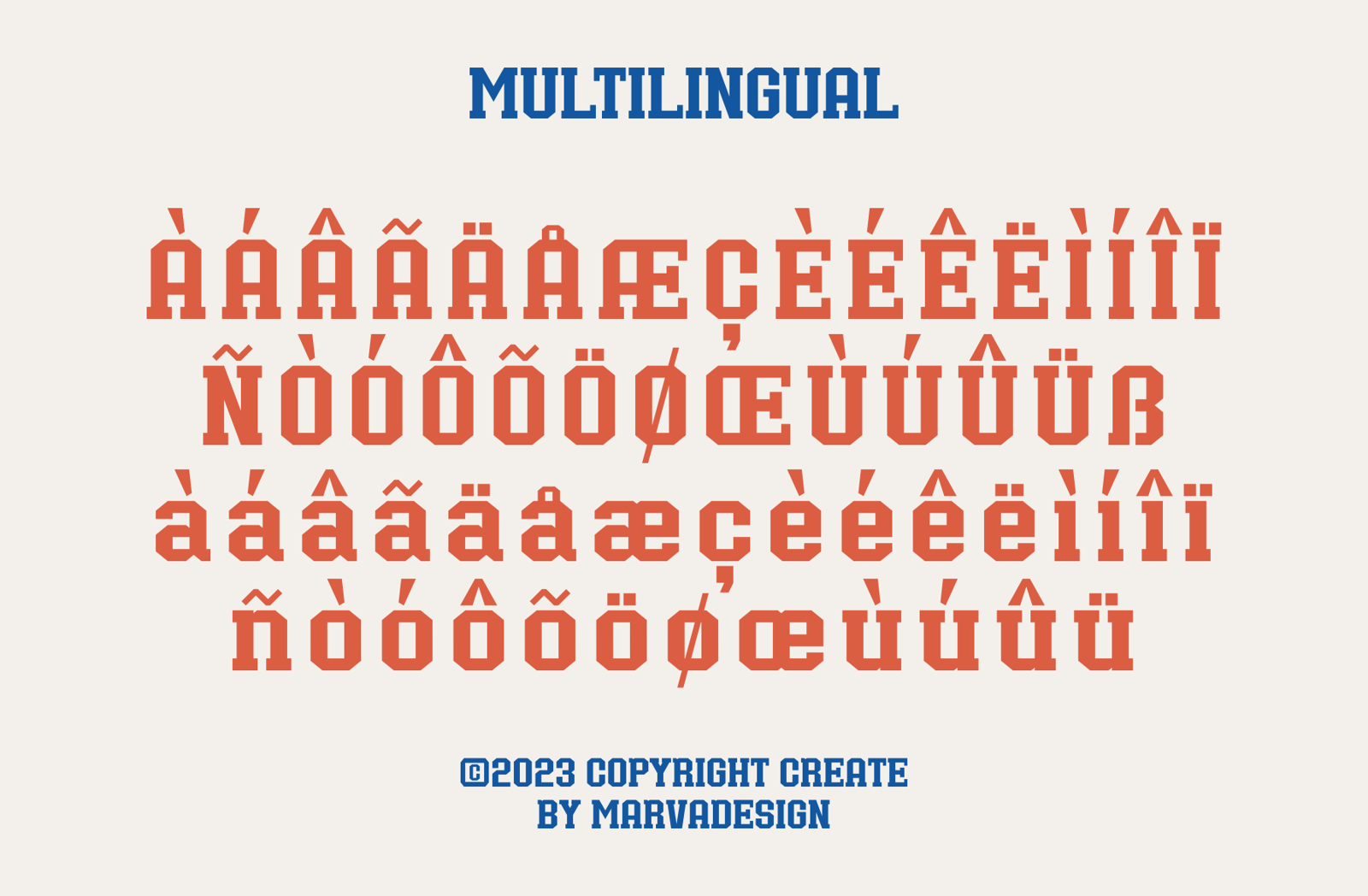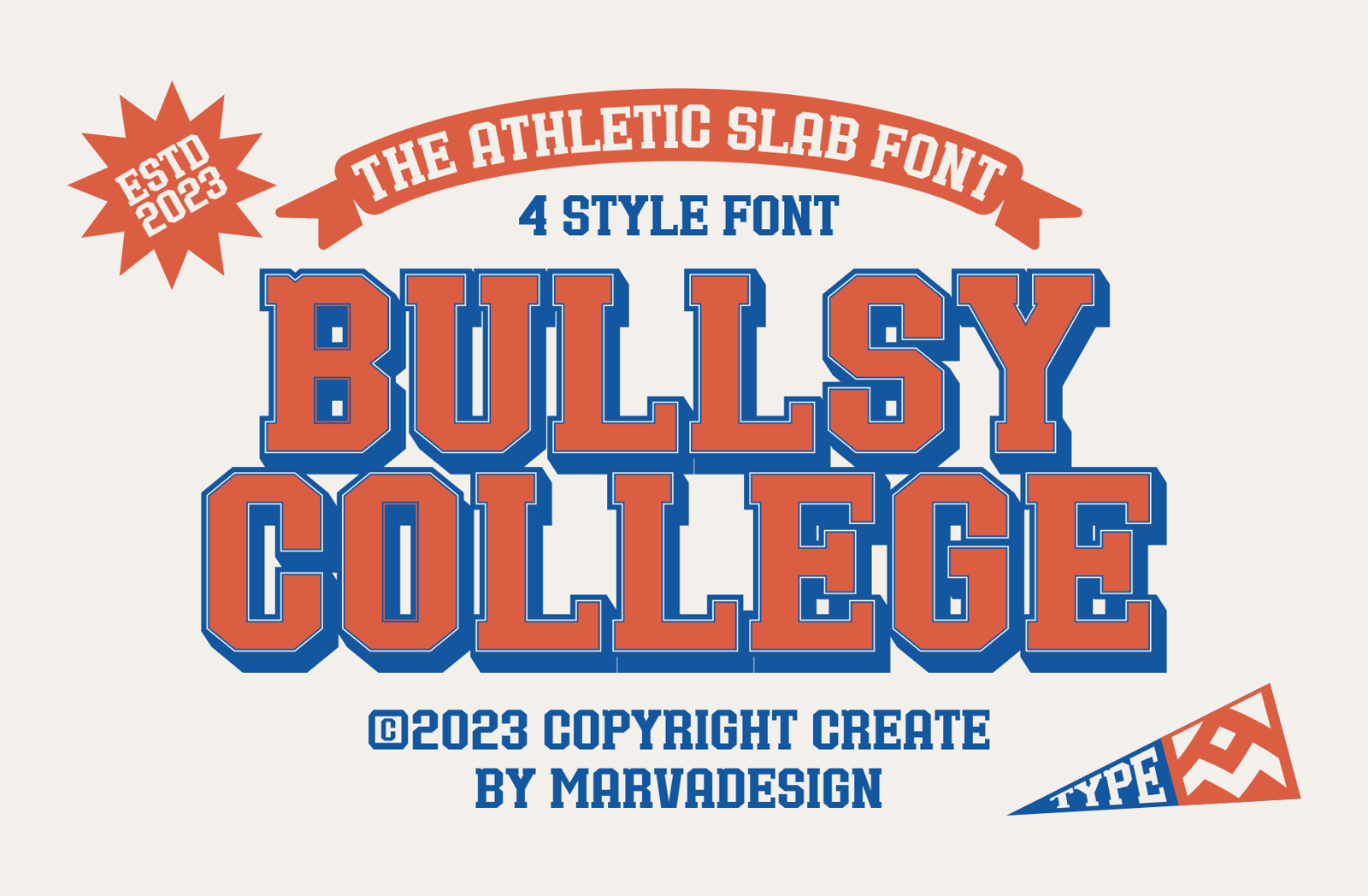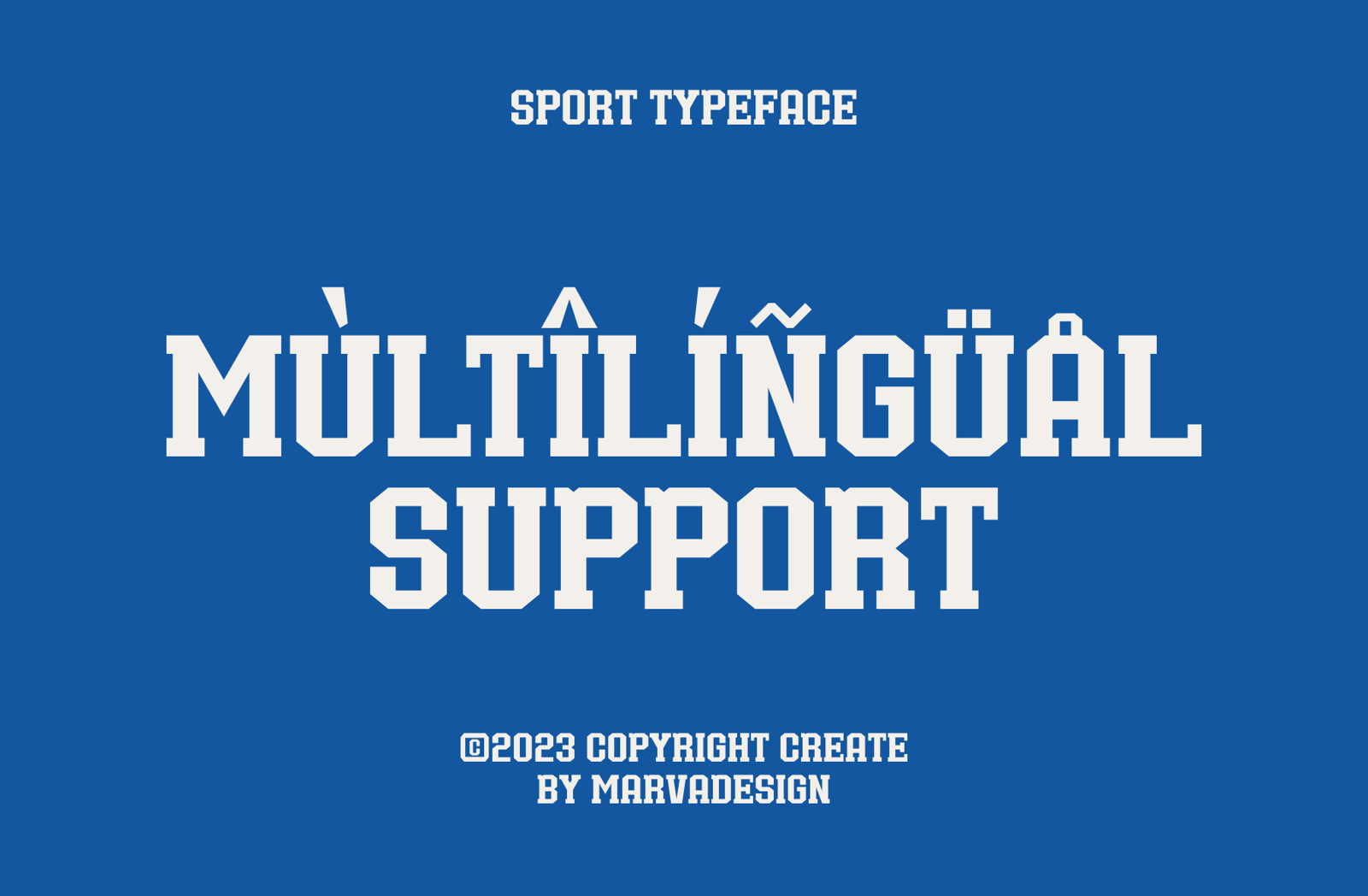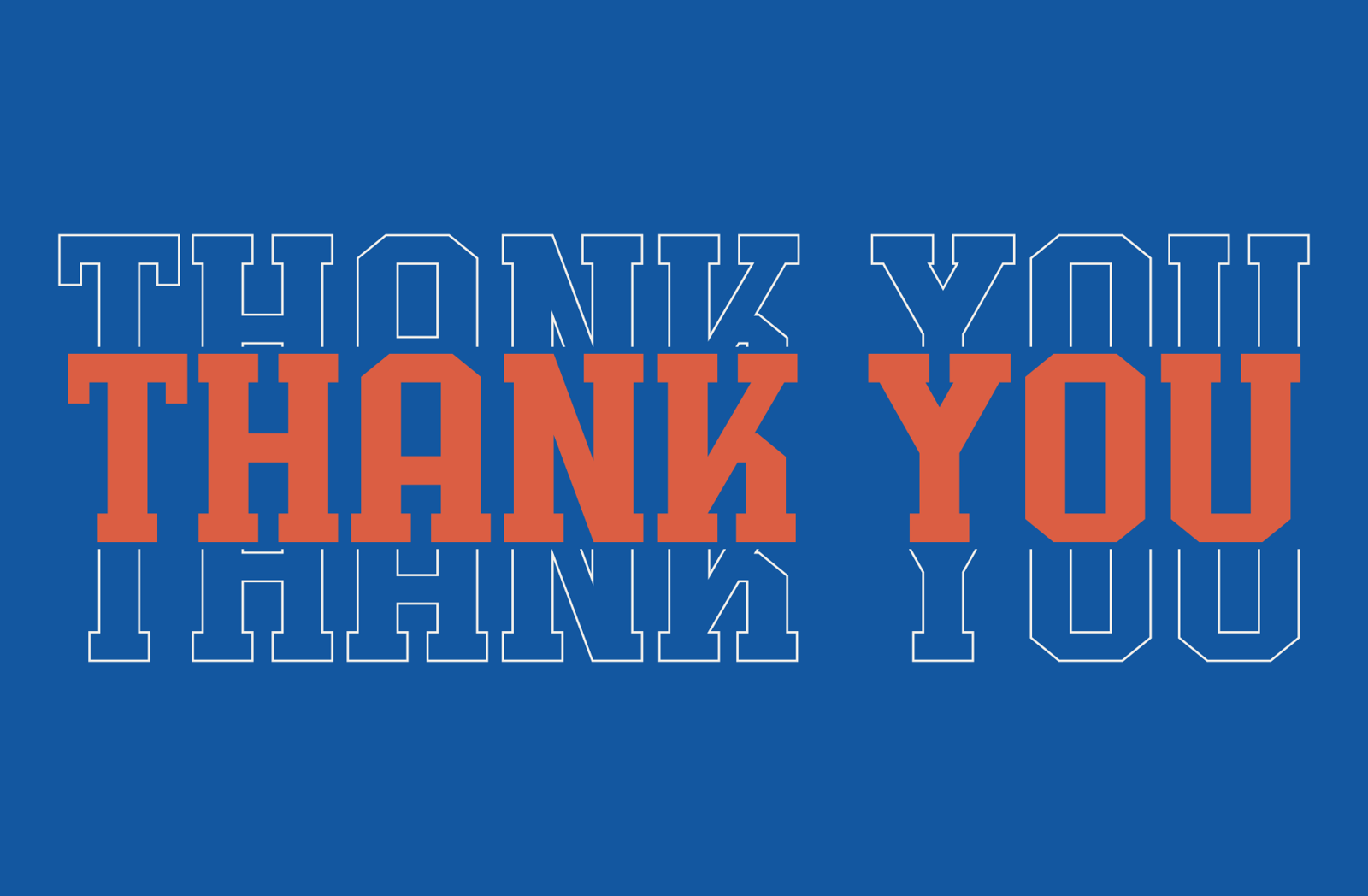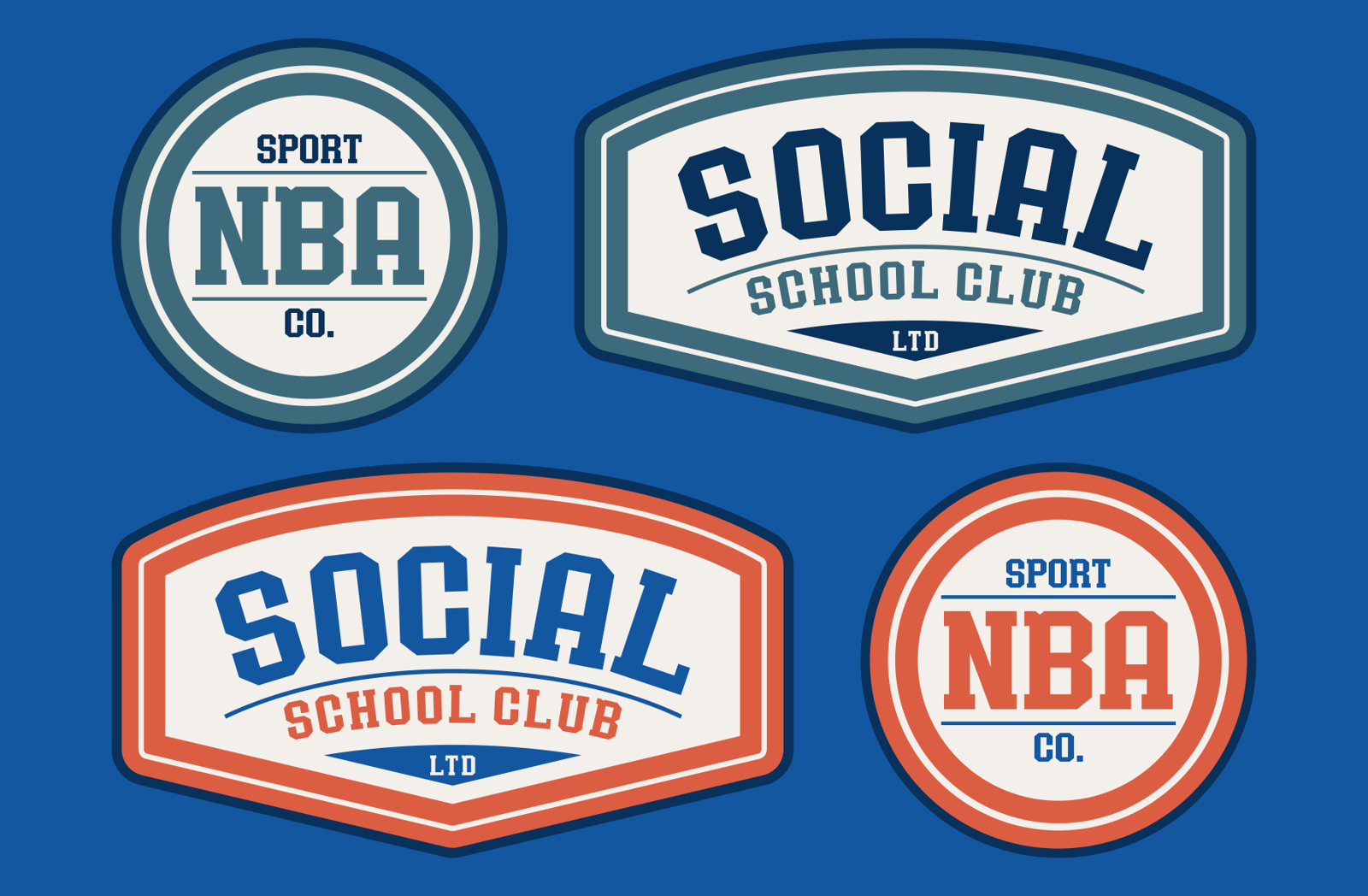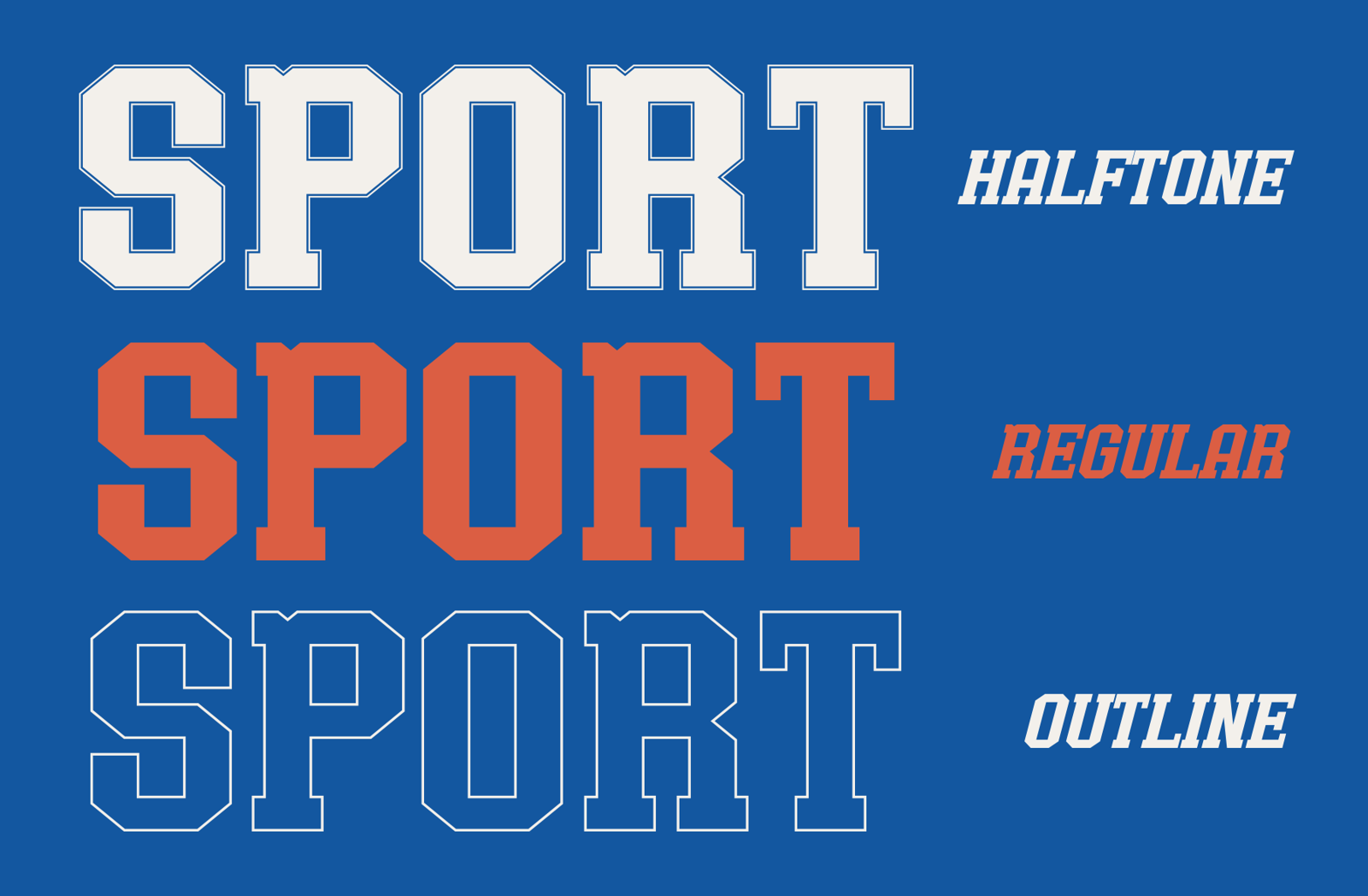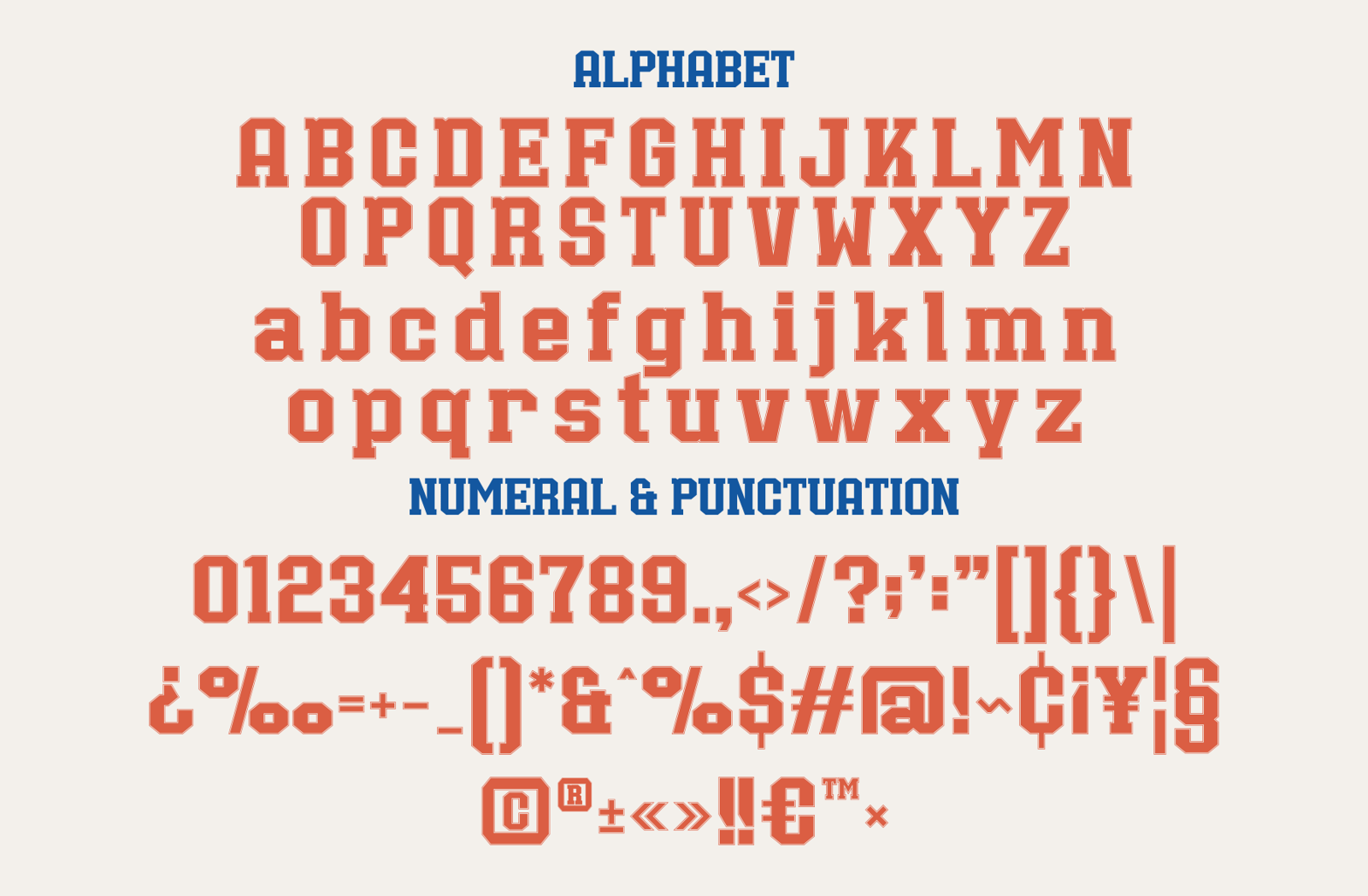
Bullsy College Font
Introducing our new product **Bullsy College Font** - A Classic Sport Font
**Bullsy College Font** - A Classic Sport Font authentic display font. The font is suitable for any branding project like logo, Template Design, Product and many more. outstanding in a wide range of contexts.
* Uppercase
* Lowercase
* Multilingual